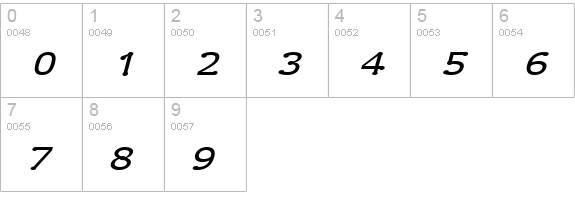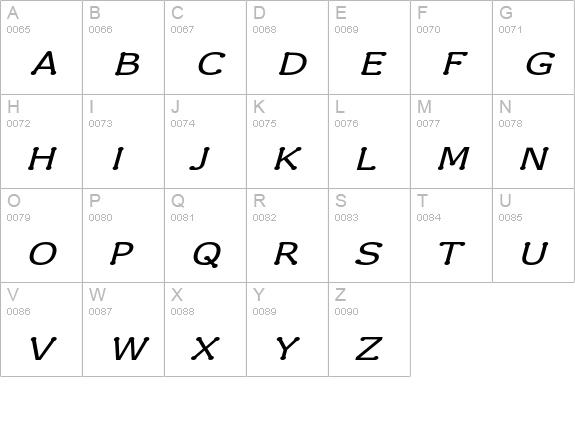
Drummon Italic Font Details
Drummon Italic is a distinctive, italic variant in the Drummon typeface family \xE2\x80\x94 well suited to design and typography projects.
Drummon Italic font exudes elegance and sophistication with its sleek and stylish letterforms. The distinctive italicized design adds a touch of flair to any project, making it perfect for creating eye-catching headlines, invitations, and more. The flowing curves and sharp angles of Drummon Italic font create a harmonious balance that is both modern and timeless. Best of all, Drummon Italic font is available for free download at FontsMarket.com, making it easily accessible for designers and creatives looking to elevate their work with a touch of class. Whether you're designing a logo, crafting a poster, or simply adding a touch of elegance to your next project, Drummon Italic font is sure to make a lasting impression. Download it today and let your creativity soar with this stunning typeface.